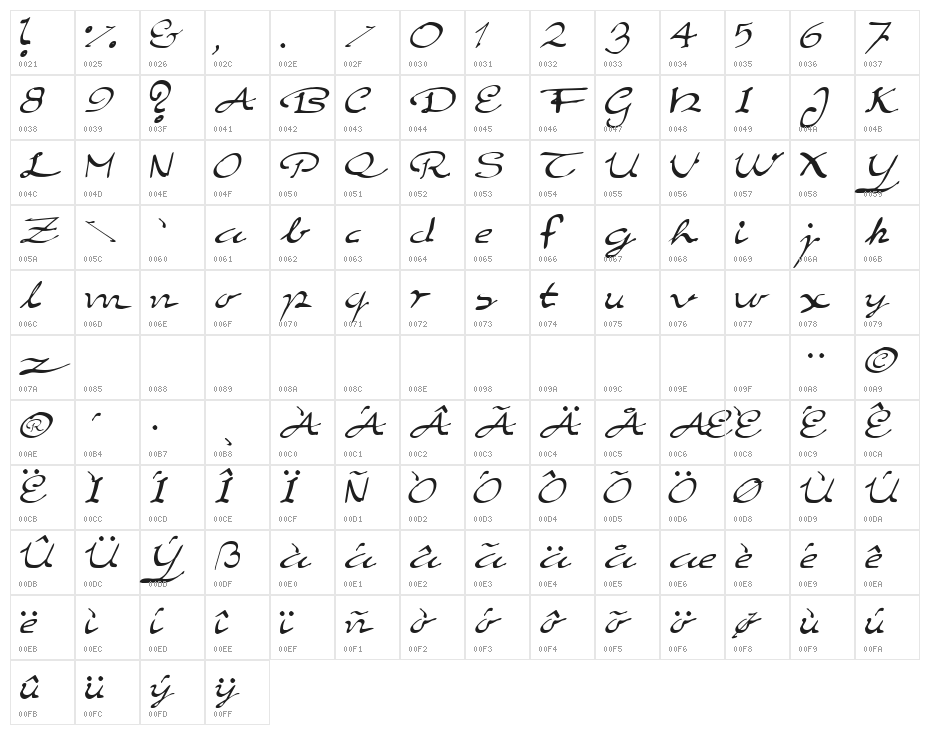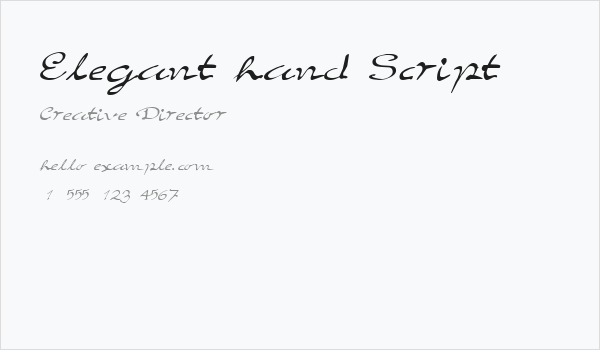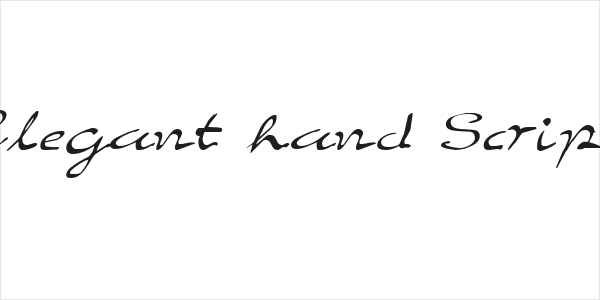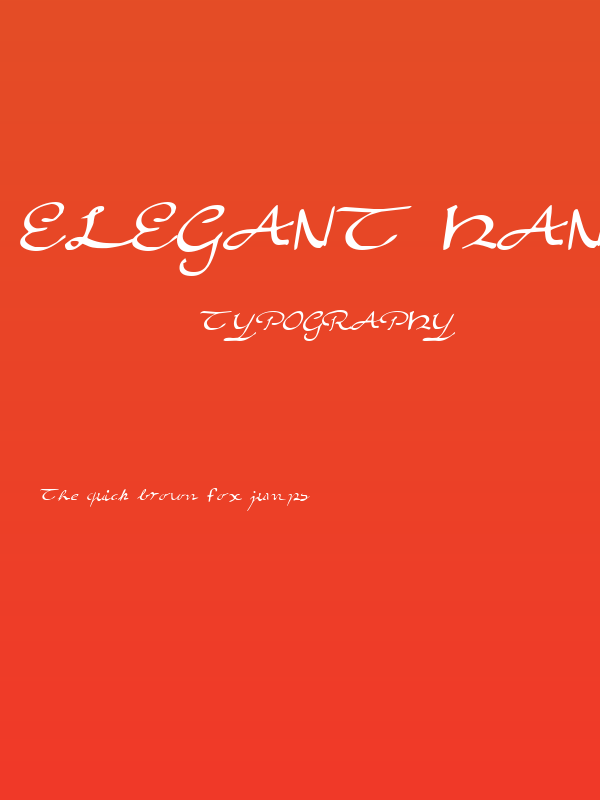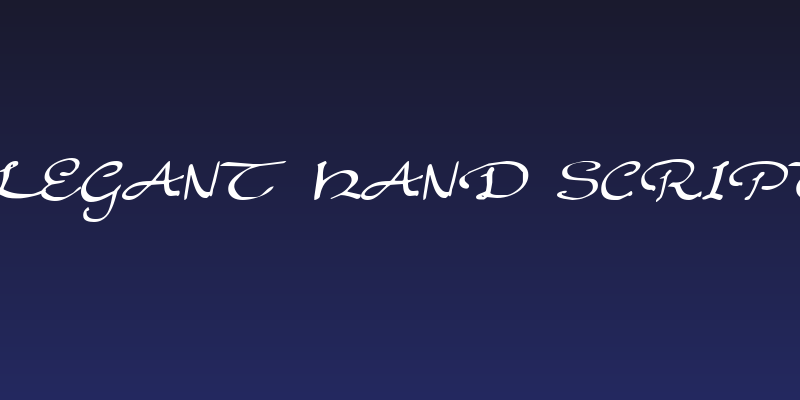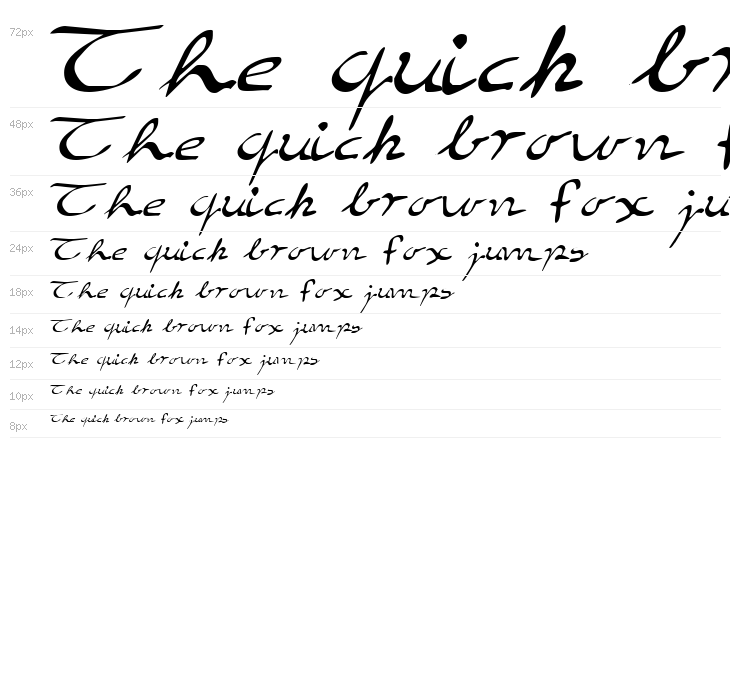
Elegant hand Script Font
Elegant hand Script Description
This font exudes elegance and sophistication with its fluid, cursive style. The characters are designed with a graceful flow, featuring smooth curves and delicate strokes that mimic the natural motion of handwriting. The uppercase letters are slightly more embellished, adding a touch of formality, while the lowercase letters maintain a consistent, flowing script. The numerals and special characters are crafted to match the overall aesthetic, ensuring a cohesive look. This font is perfect for projects that require a personal, artistic touch, such as invitations, greeting cards, or branding materials.
| Overall Style | Elegant, Artistic |
| Use Case | Invitations, Artistic projects, Branding |
| Proposed Projects | Ideal for wedding invitations, personal branding, greeting cards, and artistic projects. |